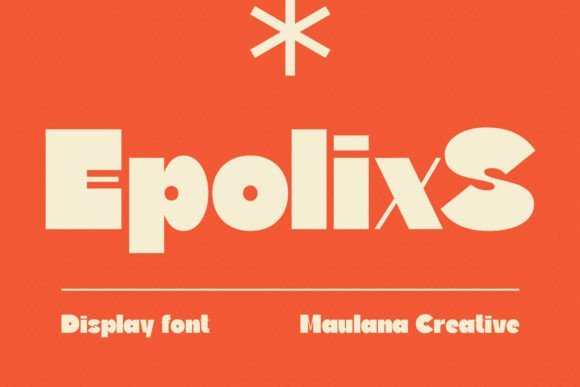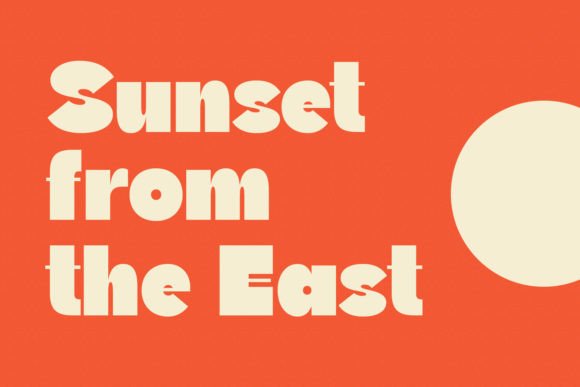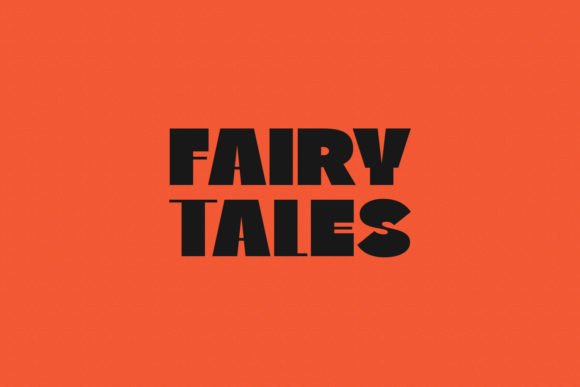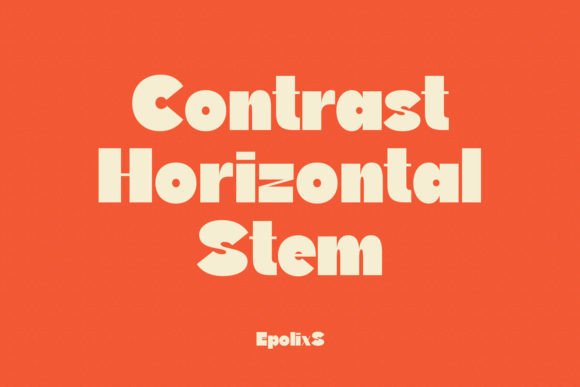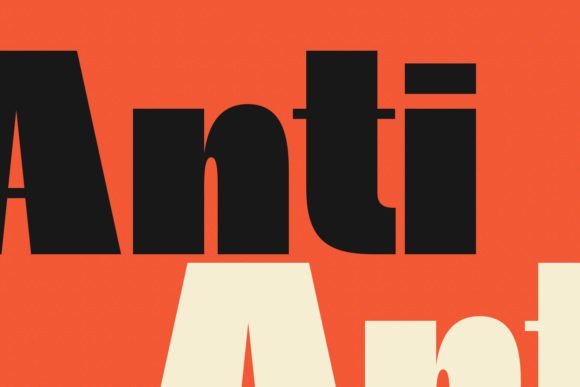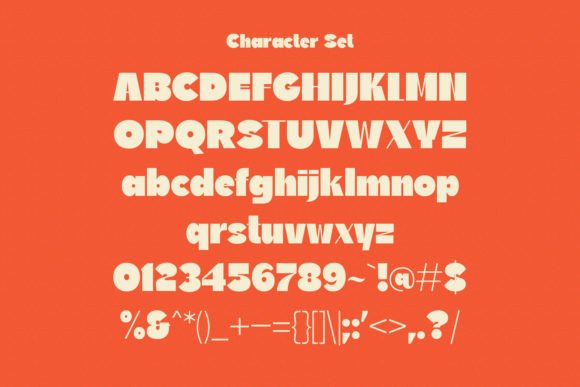
The Perfect Match for Your Creative Vision
Have you ever stared at a blank page, eager to bring your ideas to life, only to feel stuck by the lack of the perfect font? We’ve all been there. The perfect font can make all the difference between a design that’s merely good and one that’s truly exceptional. That’s where Epolixs Font comes in – a masterfully designed display font that’s sure to become a true favorite among designers.
Designed to elevate your creative ideas to new heights, Epolixs Font is a valuable asset for any designer looking to take their work to the next level. With its unique style and versatility, this font is perfect for making a statement in any project, from advertising to editorial design. Whether you’re a seasoned pro or just starting out, Epolixs Font is sure to become your go-to choice for bringing your vision to life.
Epolixs Font Key Features
- Unique Characteristics: The font features a unique blend of modern and vintage elements, with intricate details and subtle texture, making it perfect for creative and artistic projects.
Epolixs Font Review
As a designer, I was excited to dive into Epolixs Font, but my experience was a mixed bag. Here’s what I think.
- The font’s bold and playful personality shines through in its rounded edges and soft curves. It’s perfect for creating a friendly and approachable vibe in branding or digital design.
- Epolixs Font has a wide range of weights, from Light to Extra Bold, making it easy to customize and adapt to different design needs.
- The font’s OpenType features and advanced typography options make it a great choice for designers who want to push the boundaries of font design.
- The font’s legibility can be an issue at smaller sizes, which may be a concern for designers who need to use it for body text or captions.
- Epolixs Font may not be the best choice for formal or professional designs, as its playful personality may come across as unprofessional in certain contexts.
- The font’s compatibility with older systems and browsers may be limited, which could be a concern for designers who need to ensure their designs work across different platforms.
Epolixs Font is a great choice for designers who want to add some personality and whimsy to their designs. While it may have some limitations, its strengths make it a solid addition to any designer’s toolkit.
Getting the Most Out of Epolixs Font
To maximize the impact of your design, use Epolixs font in combination with other design elements, such as images, colors, and textures.
Experiment with different font sizes, colors, and arrangements to create a visually appealing layout.
Epolixs font is suitable for various design projects, including:
Corporate branding
Marketing materials (posters, flyers, brochures)
Presentations (PowerPoint, Keynote)
Web design